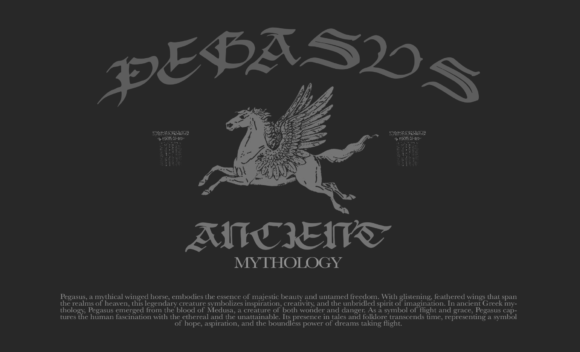
Introducing Archdale Blackletter: A Timeless Typeface Steeped in Gothic Elegance
In the realm of typography, few fonts manage to capture the essence of classic design while still offering a unique and versatile aesthetic. Archdale Blackletter, however, achieves just that. This stout yet vintage-styled typeface draws inspiration from historic bastarda scripts, bringing forth a collection of four distinct renditions that cater to a wide range of creative applications. Whether you’re looking to infuse your brand with a touch of tradition or add a dash of daring to your design, Archdale Blackletter is the perfect choice.
The Inspiration Behind Archdale Blackletter
Archdale Blackletter finds its roots in the rich history of bastarda scripts, a style of calligraphy that emerged in Europe during the Middle Ages. Characterized by its dramatic flourishes and robust letterforms, bastarda scripts were often used in official documents and literary works. Archdale Blackletter pays homage to this historical style, while also injecting a modern twist that makes it suitable for a variety of contemporary applications.
Exploring the Four Unique Renditions of Archdale Blackletter
One of the standout features of Archdale Blackletter is its versatility, which is achieved through its four unique renditions: Regular, Outline, Shadow, and Bleed. Each version offers a distinct aesthetic that can be tailored to suit different design needs.
1. Regular: A Touch of Tradition
The Regular version of Archdale Blackletter embodies the classic essence of bastarda scripts. With its robust letterforms and elegant flourishes, this rendition is perfect for designs that require a traditional touch. From branding and logotypes to book covers and headlines, the Regular version of Archdale Blackletter brings a sense of timeless sophistication to any project.
2. Outline: A Contemporary Angle
For designs that demand a more modern approach, the Outline version of Archdale Blackletter offers a sleek and contemporary aesthetic. By stripping away the fill and presenting the font in a bold outline format, this rendition infuses a fresh and edgy vibe into any design. It’s ideal for streetwear, fashion brands, and any project that requires a cutting-edge look.
3. Shadow: Adding Depth and Dimension
The Shadow version of Archdale Blackletter adds a new level of depth and dimension to the classic typeface. By incorporating a subtle shadow effect, this rendition creates a sense of layering and texture that can add visual interest to any design. It’s particularly effective for album covers, movie posters, and any project that requires a dramatic impact.
4. Bleed: A Dash of Daring
For those looking to push the boundaries of design, the Bleed version of Archdale Blackletter offers a bold and daring aesthetic. Characterized by its distressed and worn appearance, this rendition adds a touch of grit and attitude to any project. It’s perfect for designs that require a strong statement, such as streetwear logos, concert posters, and edgy branding.
Applications of Archdale Blackletter
The versatility of Archdale Blackletter makes it suitable for a wide range of applications. Here are some of the key areas where this typeface can make a significant impact:
1. Branding and Logotypes
Archdale Blackletter offers a unique opportunity for brands to establish a strong visual identity. Its classic yet versatile aesthetic makes it perfect for creating memorable logos that stand out in a crowded market.
2. Streetwear and Fashion
The Outline and Bleed versions of Archdale Blackletter are particularly well-suited for streetwear and fashion brands. They offer a modern and edgy aesthetic that resonates with younger audiences and adds a cool factor to any design.
3. Book Covers and Headlines
The Regular and Shadow versions of Archdale Blackletter are ideal for book covers and headlines. They bring a sense of classic elegance and sophistication to any literary work, making them perfect for fiction and non-fiction titles alike.
4. Album Covers and Music Branding
Archdale Blackletter is also well-suited for album covers and music branding. Its bold and dramatic aesthetic makes it perfect for adding a touch of drama and flair to any music-related project.
Archdale Blackletter is a unique and versatile typeface that offers a timeless aesthetic with a modern twist. Its four distinct renditions cater to a wide range of design needs, making it perfect for various applications, from branding and streetwear to book covers and music branding. With Archdale Blackletter, designers can capture the magic of classic design while still delivering a fresh and contemporary look. Whether you’re looking to add a touch of tradition or a dash of daring to your design, Archdale Blackletter is the perfect choice.